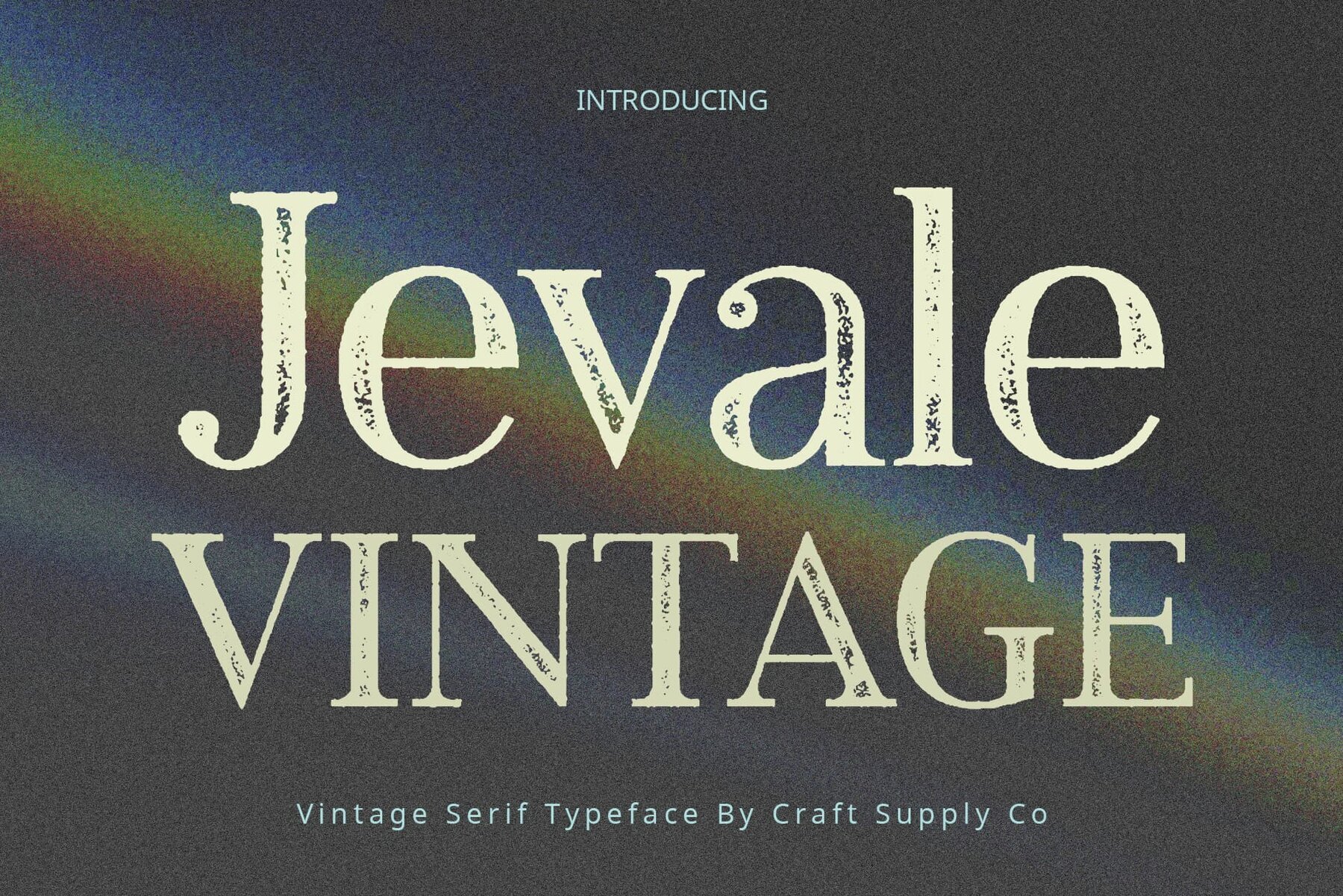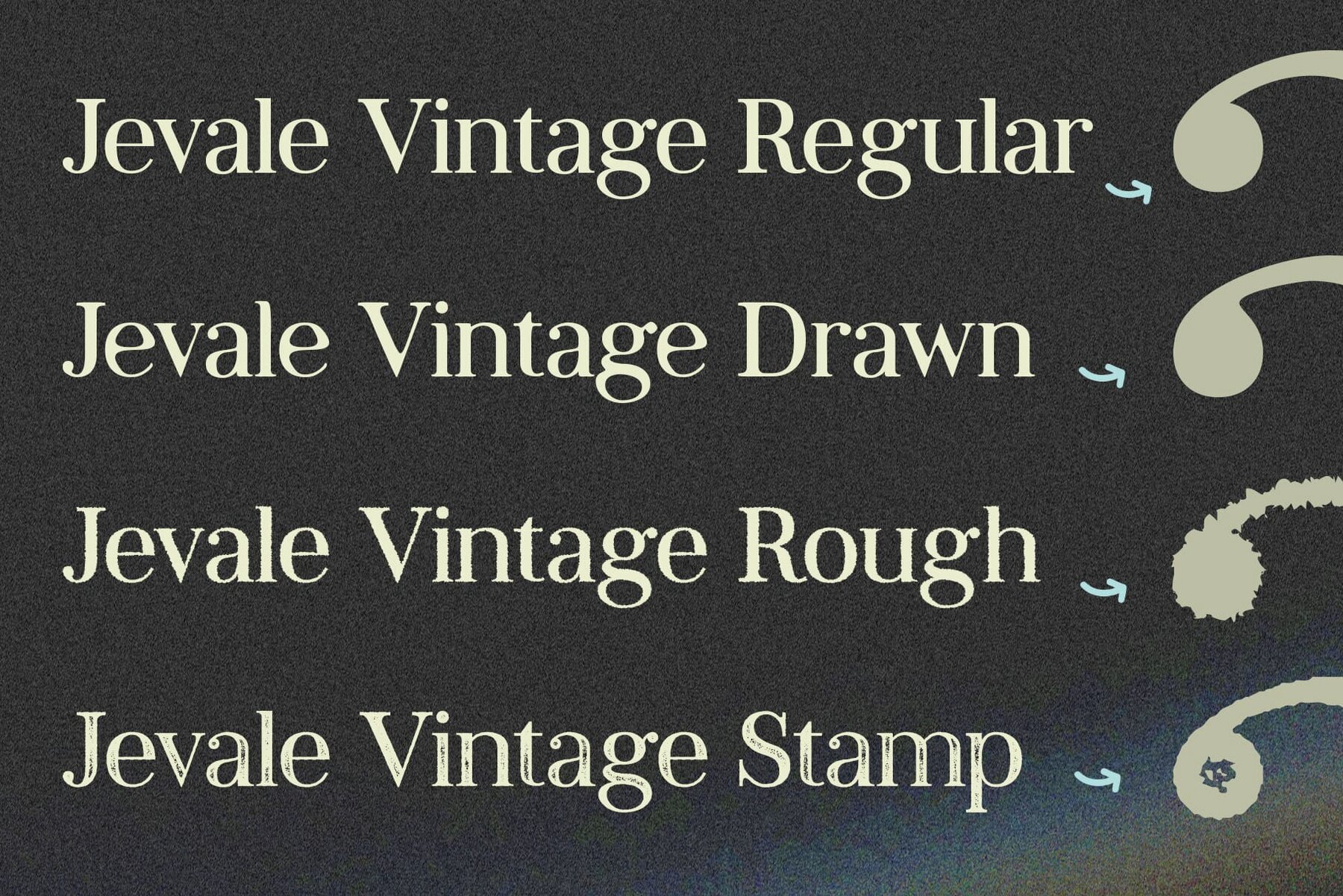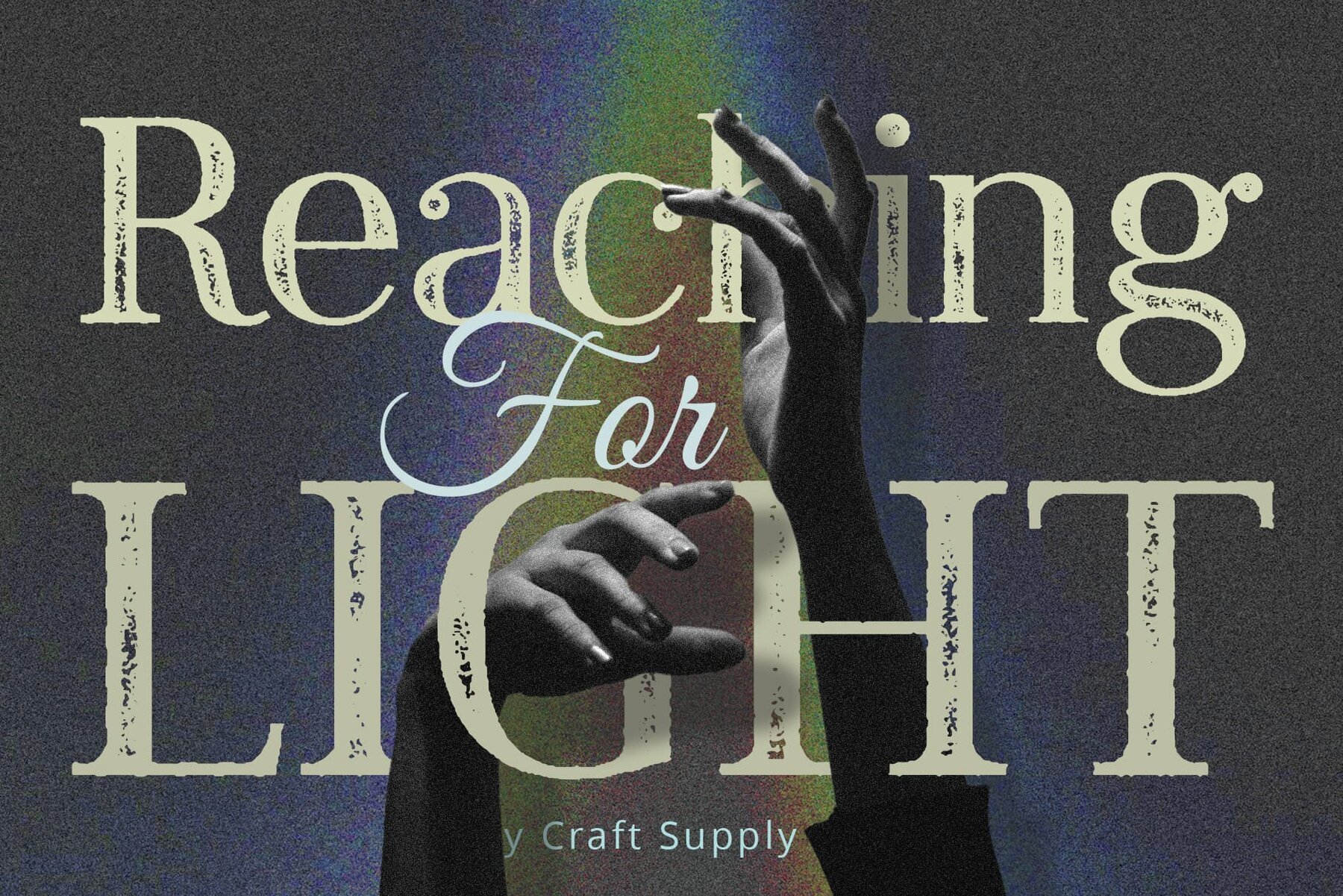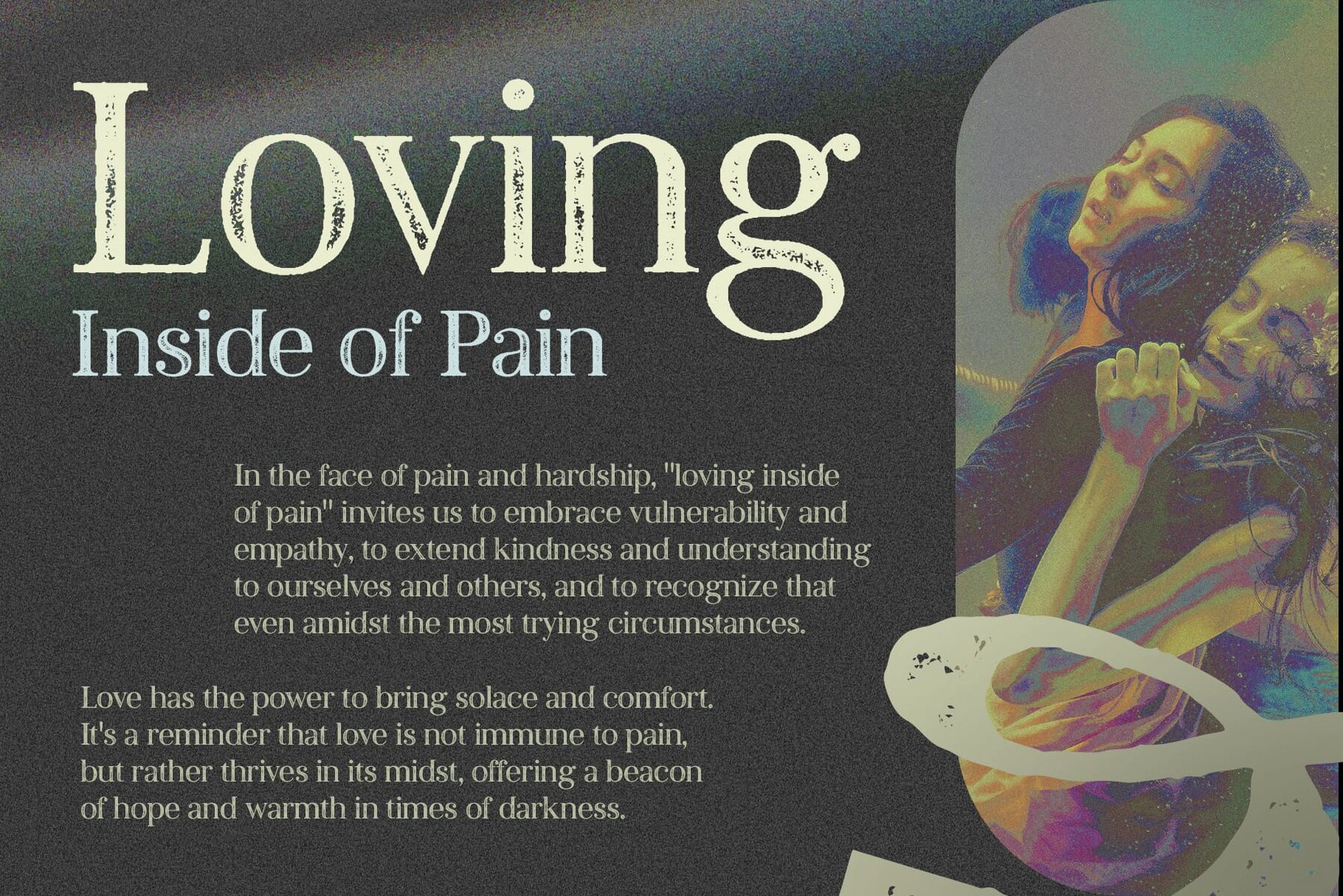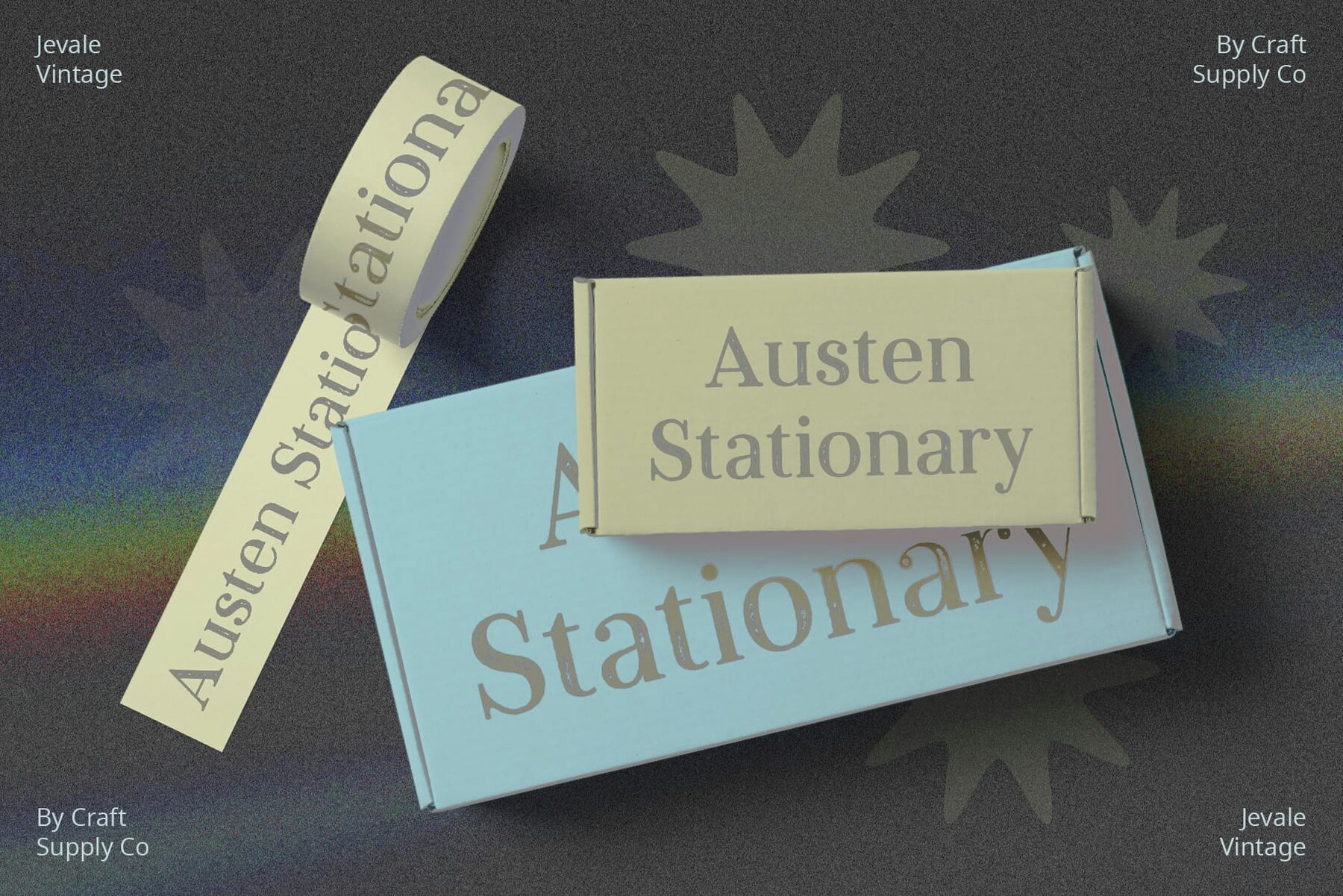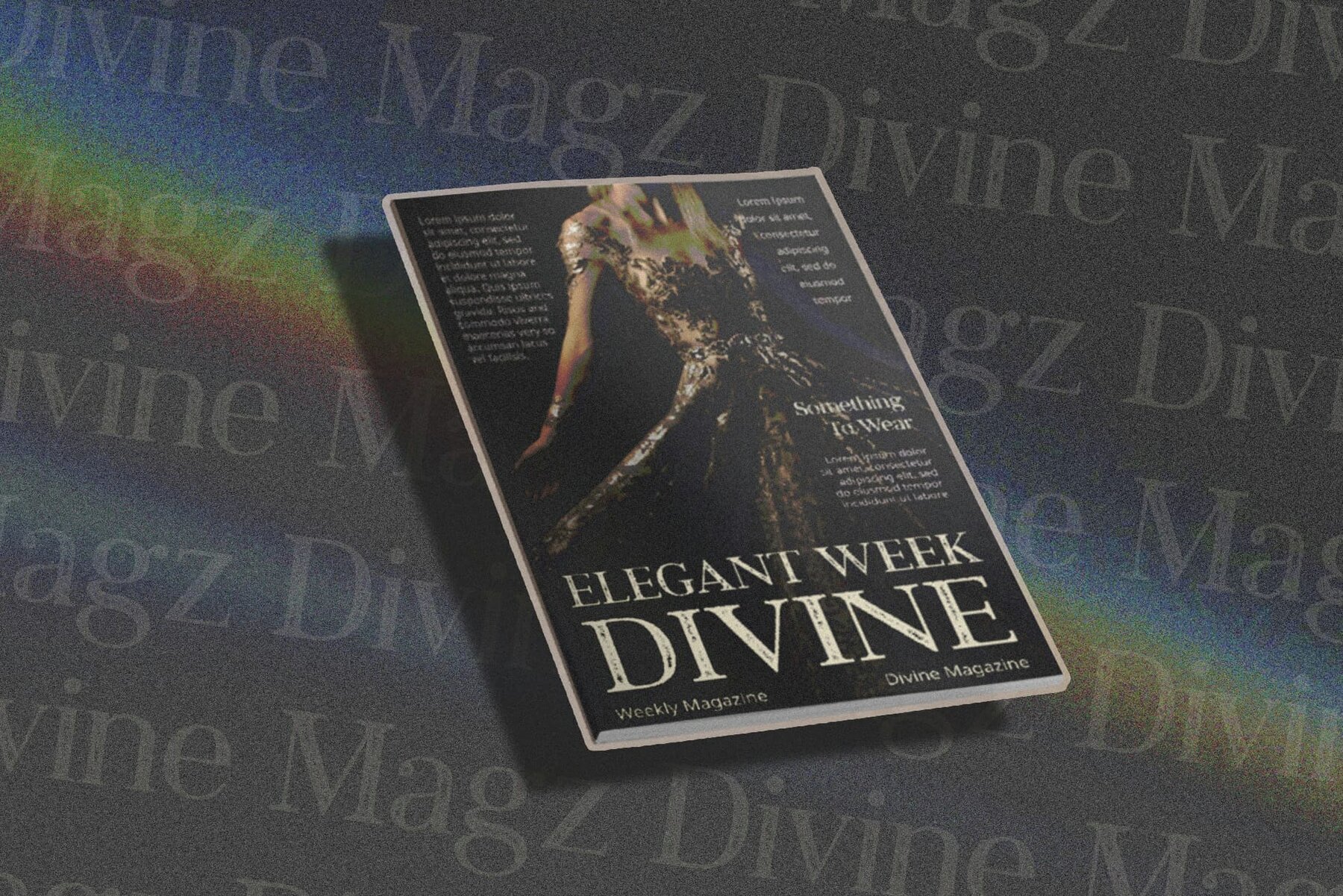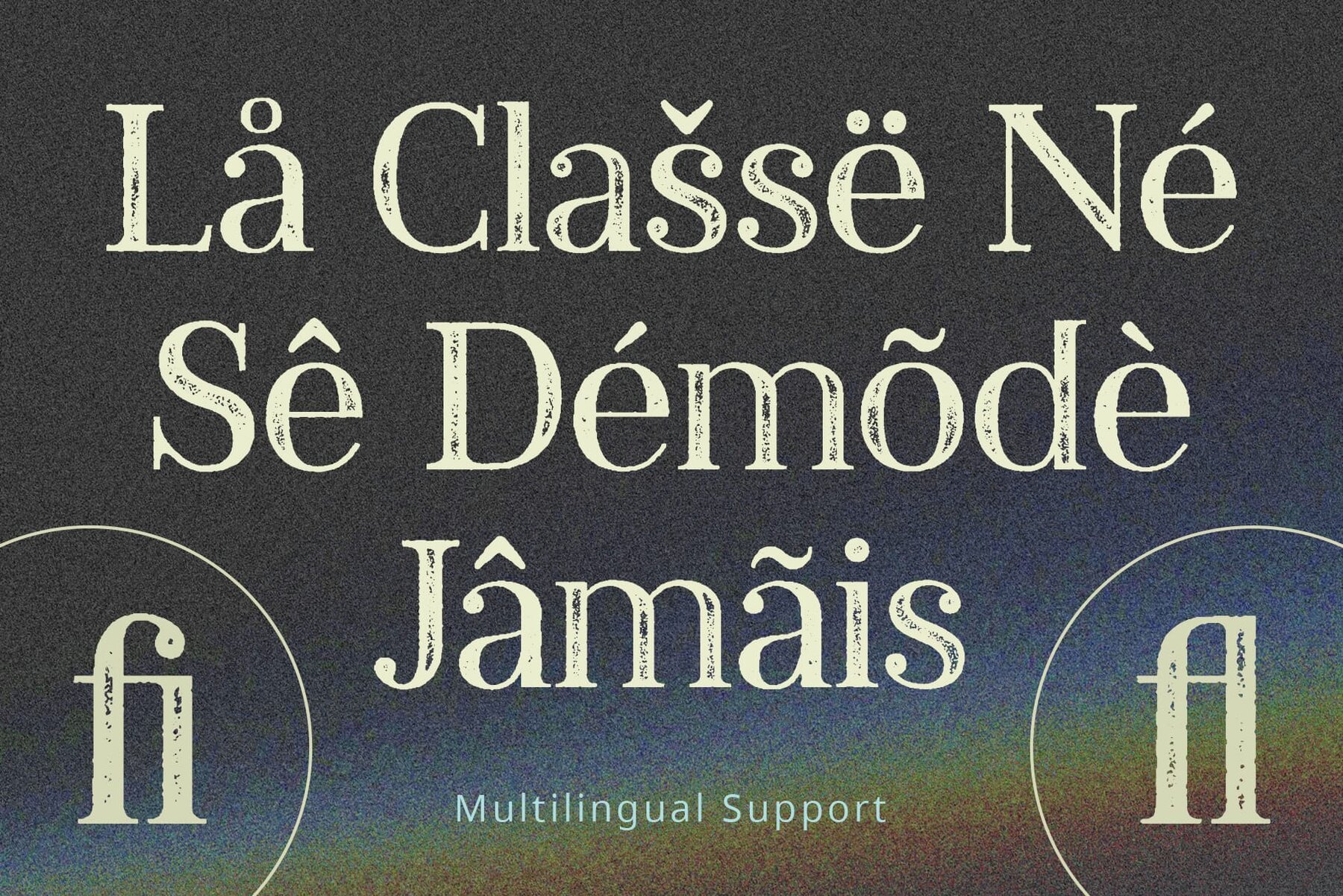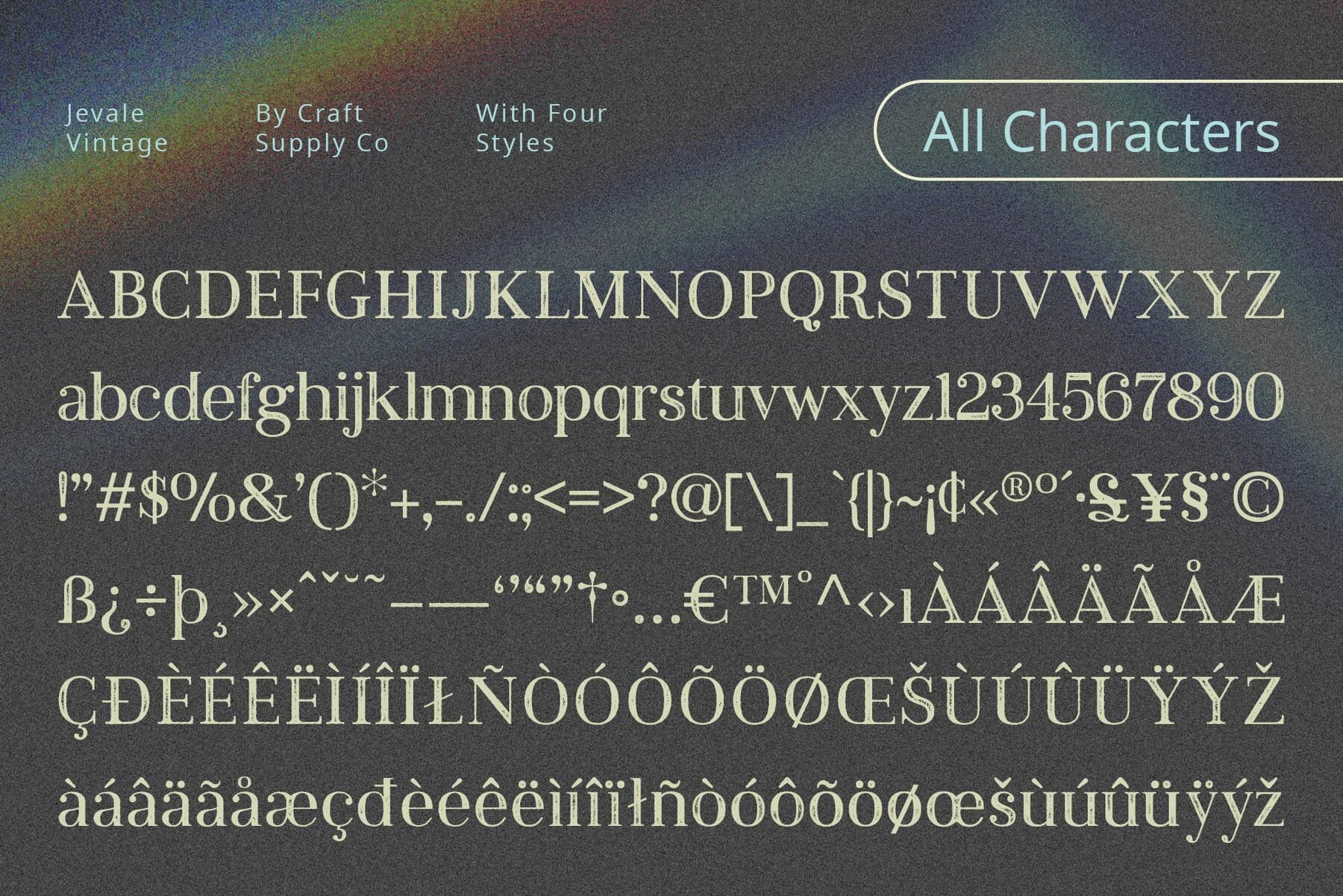
Jevale Vintage Font
High Stroke Serif Design Jevale Vintage showcases a high stroke serif design, exuding elegance and sophistication in every character. Its tall and slender strokes impart a sense of refinement and classic beauty. Classic Style Aesthetic With its classic style aesthetic, Jevale Vintage evokes the timeless charm of vintage typography. Each letter is crafted with meticulous attention to detail, capturing the essence of traditional serif fonts. Rough Stamp Drawn Effect The font features a rough stamp drawn effect, adding a rustic and weathered appearance that enhances its vintage allure. This effect lends Jevale Vintage a sense of authenticity and character, reminiscent of old-fashioned letterpress printing. Vintage Charm and Versatility Despite its vintage-inspired design, Jevale Vintage remains versatile in its application. From wedding invitations to branding and packaging, it infuses projects with a touch of vintage charm and timeless sophistication. Timeless Sophistication with Vintage Flair This font combines the timeless elegance of classic serif fonts with the rustic appeal of rough stamp drawn effects, resulting in a font that exudes vintage charm and sophistication. Elevate your designs with Jevale Vintage and add a touch of timeless beauty to your projects. No specialized software is needed to utilize this typeface.Jevale Vintage: Timeless Elegance with Vintage Appeal